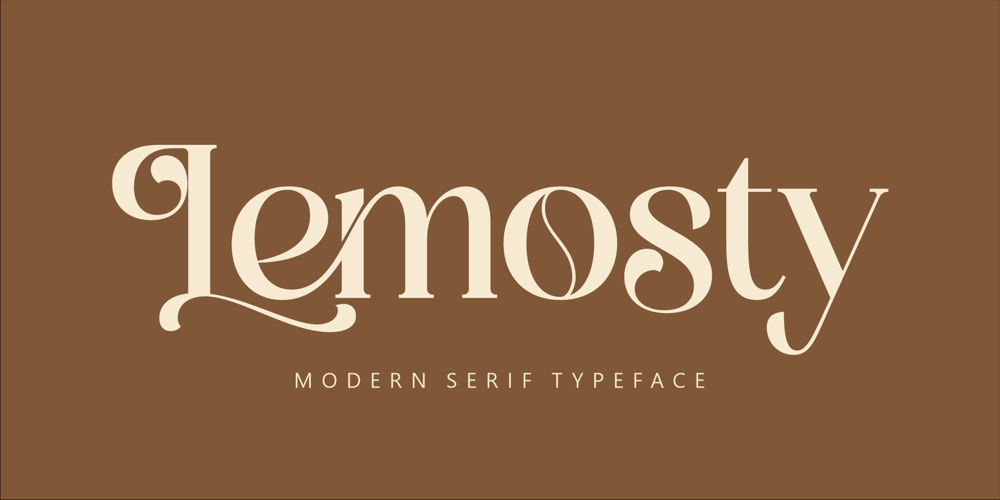
Lemosty Font Family was designed by Heru Utama Putra and published by Letterena Studios. Lemosty contains 2 styles and family package options. Lemosty is a modern and classy serif font with a unique style and fancy look. This typeface is perfect for an elegant & luxury logo, book or movie title design, fashion brand, magazine, clothes, lettering, quotes, and so much more. This font is PUA encoded, which means you can access all of the glyphs and swashes with ease!